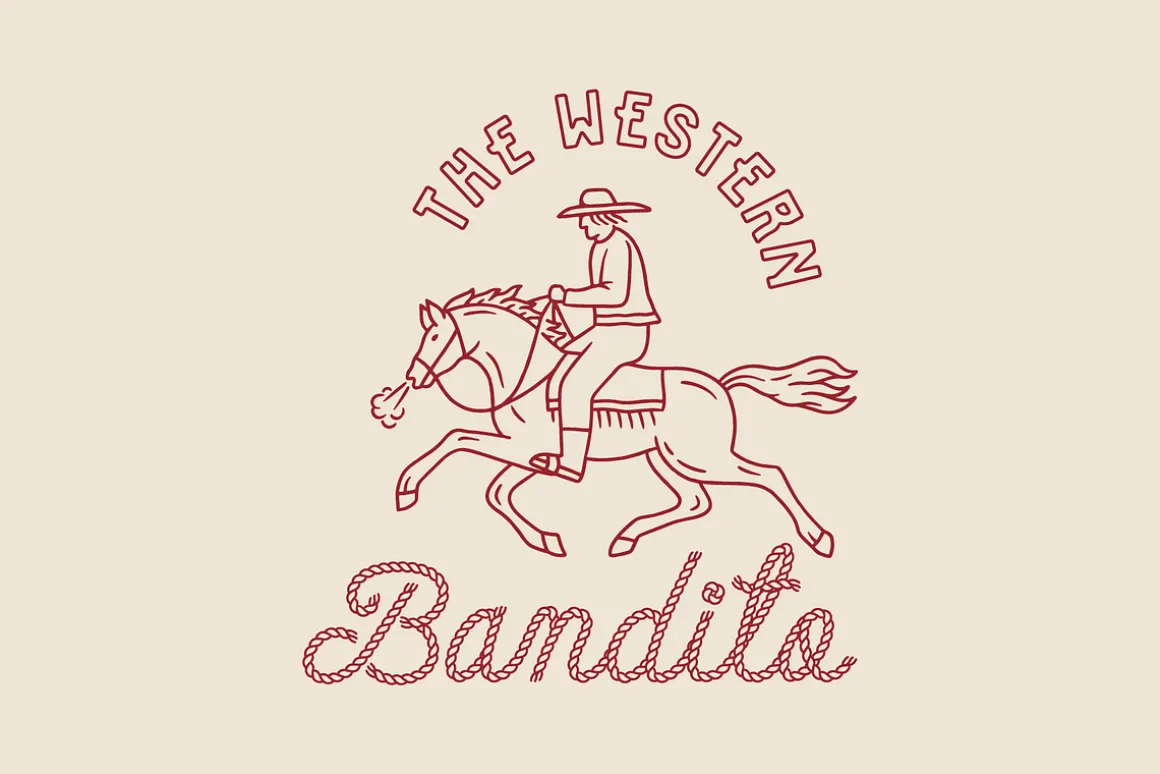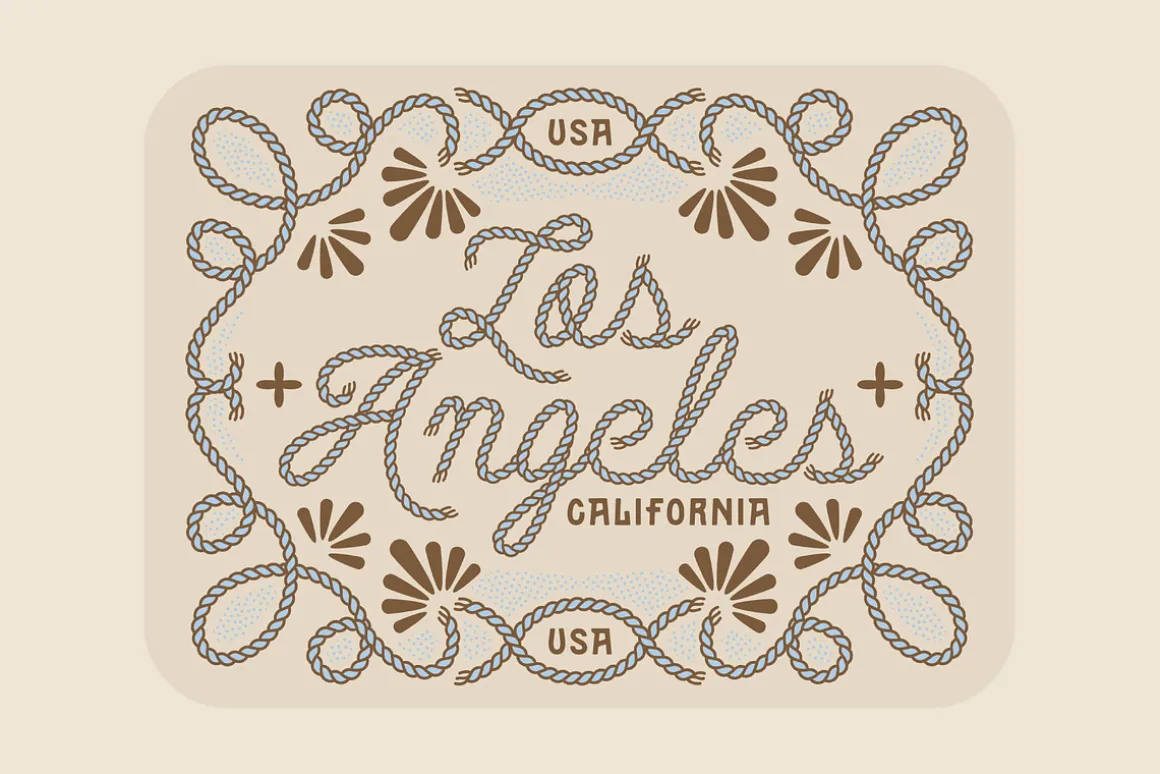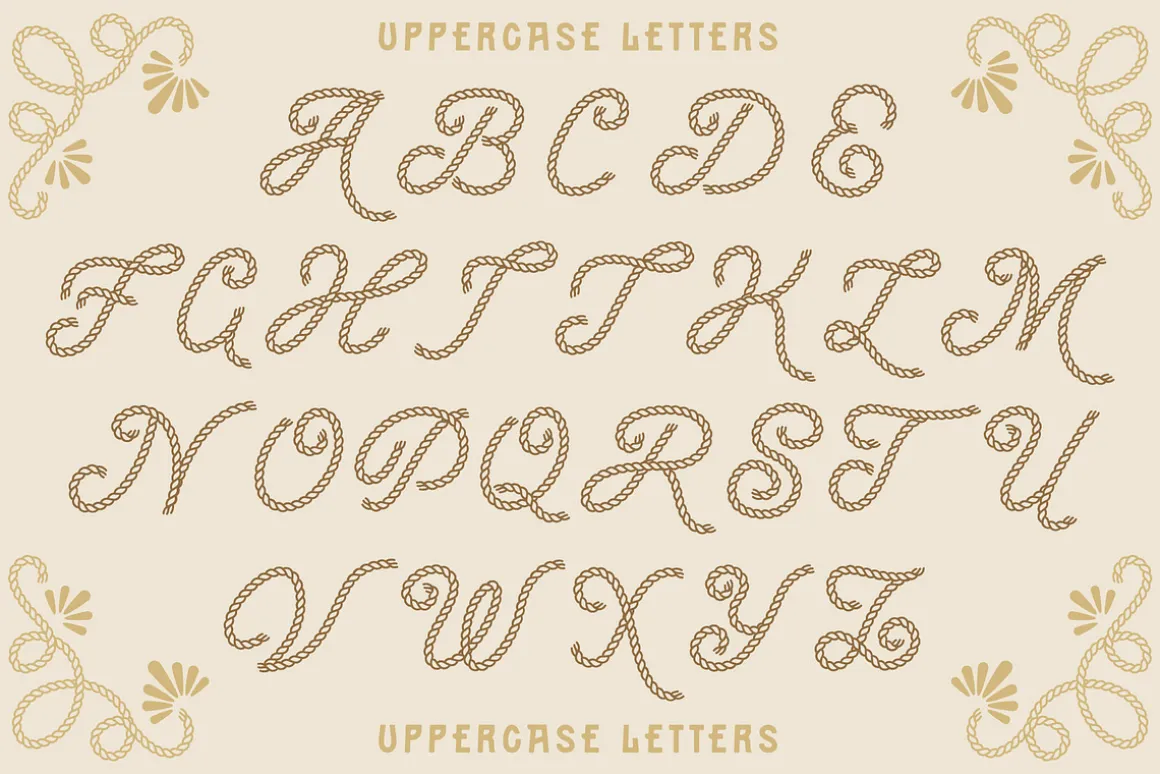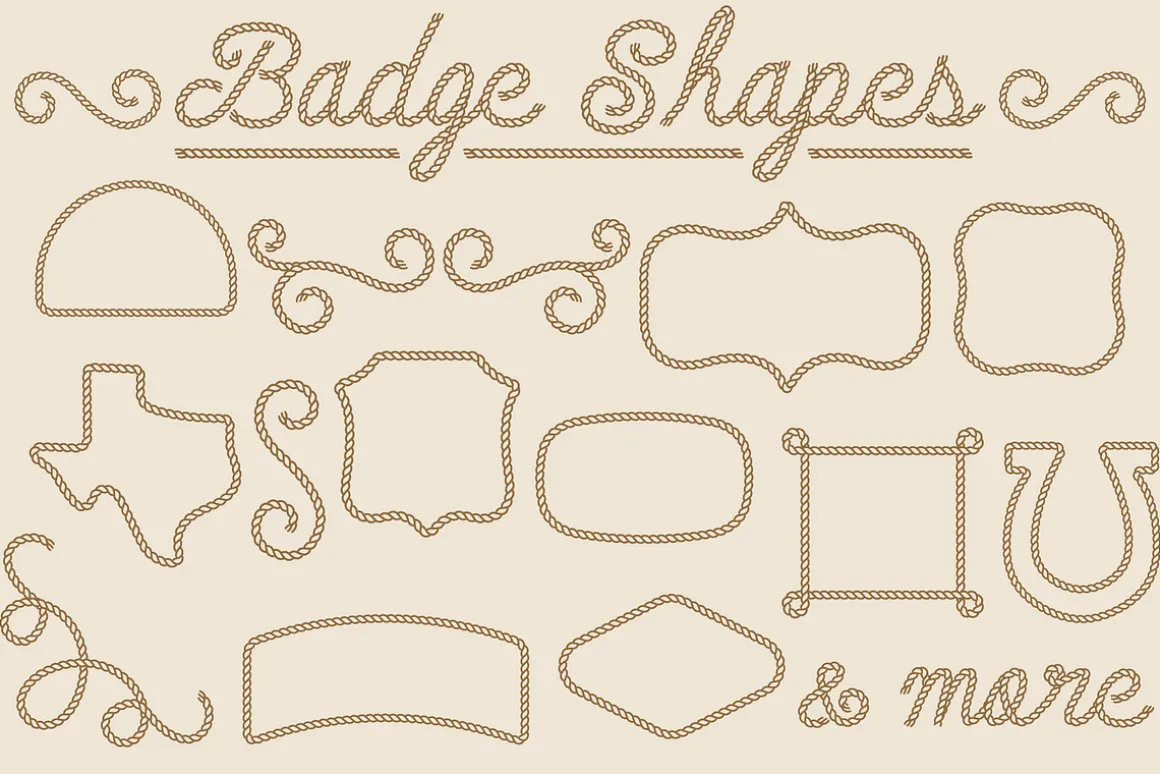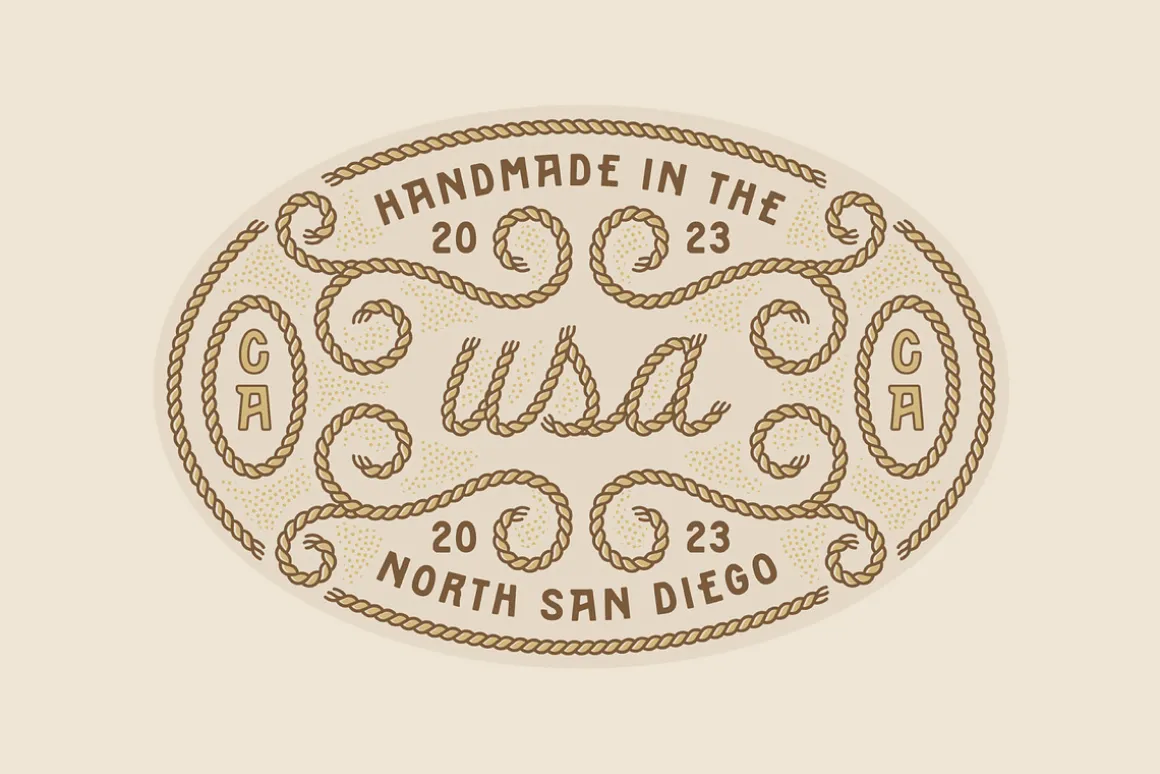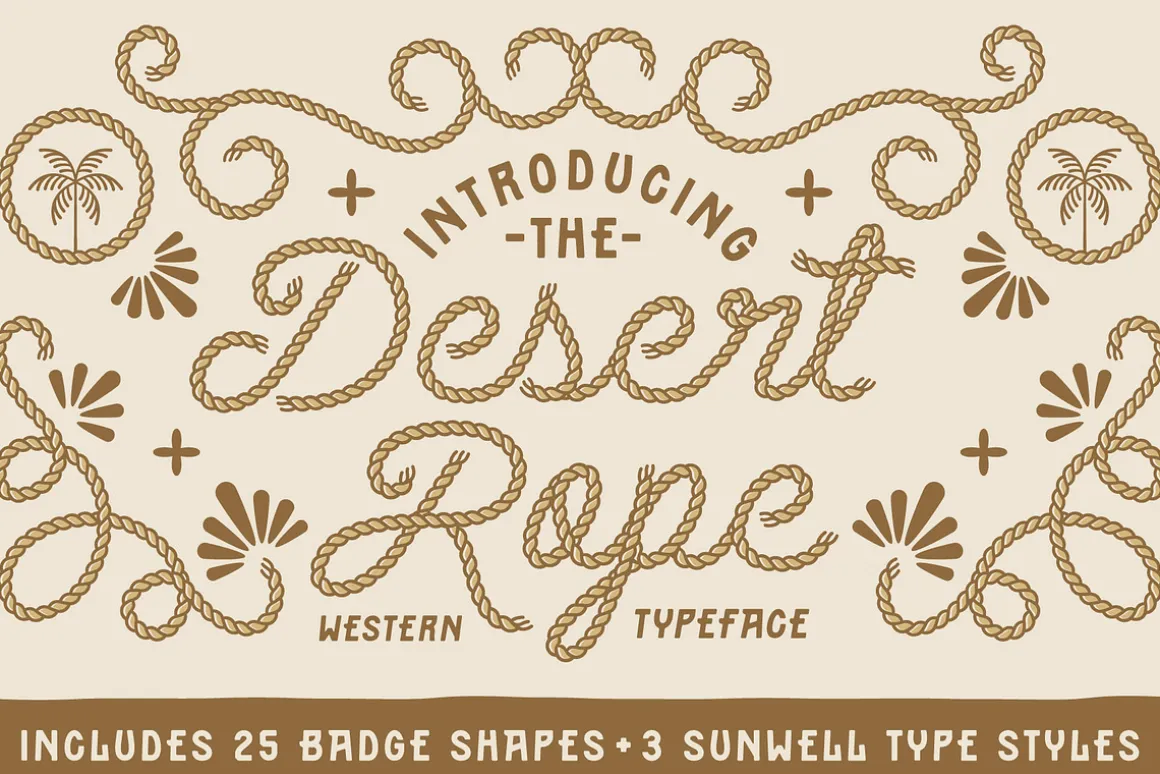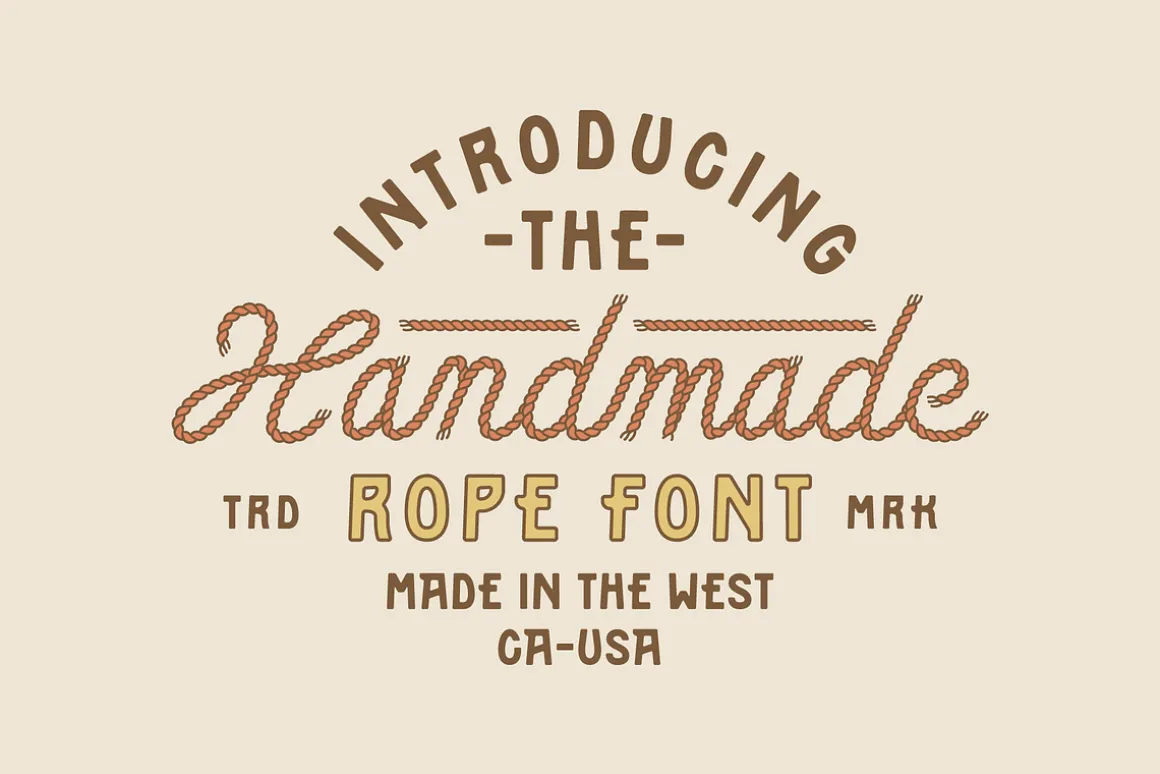
The Desert Rope typeface is here! Inspired by the loose twirls of a lasso, Desert Rope is a fully functioning script font that includes a wide range of character alternates and ligatures. This font will bring that authentic vintage western vibe to your work.Includes:
Whether you’re branding a western event or adding a rustic touch to your illustrations, this font will be your new trusty steed.